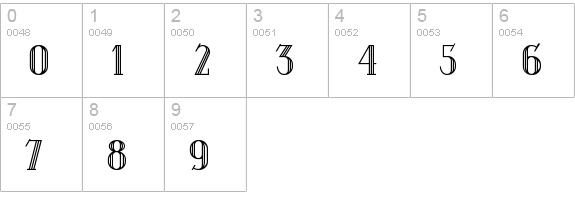
DebonairInline is a stunningly elegant and sophisticated font that exudes charm and style. Its sleek and sleek design is perfect for adding a touch of class to any design project. With its clean lines and refined curves, DebonairInline offers a unique blend of modernity and classicism, making it a truly versatile typeface. This font is the epitome of sophistication, with its slender and graceful letterforms. It effortlessly captures attention and commands a sense of authority, making it ideal for luxury branding, high-end editorial design, and upscale packaging. Whether used for headlines, titles, or body text, DebonairInline adds a touch of refinement to any project. One of the best things about DebonairInline is that it is freely available to download at FontsMarket.com. This means that designers and creatives can easily access this exquisite font without any hassle. Whether you are a professional designer or a hobbyist, DebonairInline offers a wealth of possibilities, enabling you to create stunning visuals that leave a lasting impression. With its versatility and timeless elegance, DebonairInline is a font that will never go out of style. Its clean lines and sophisticated design make it a perfect choice for a wide range of applications, from elegant wedding invitations to high-end fashion magazines. So why wait? Go ahead and download DebonairInline for free at FontsMarket.com and elevate your design projects to new heights of sophistication and elegance.